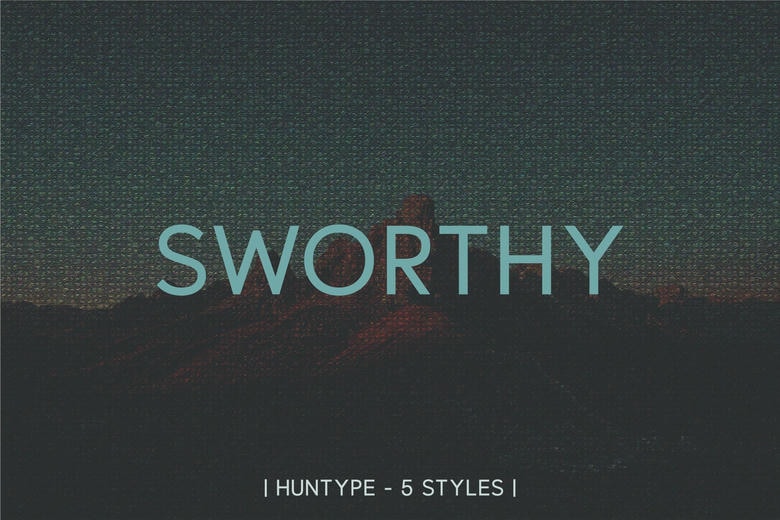
Sworthy Font
Sworthy is a Sans Serif Font, a meticulously crafted font family that epitomizes elegance, modernity, and versatility. With its five distinct weights—THIN, LIGHT, REGULAR, BOLD, and BLACK. Sworthy Family offers a wide range of creative possibilities, making it the perfect choice for designers and content creators.
Whether you’re aiming for a subtle and delicate touch or a bold and impactful statement, this font family’s seamless blend of sophistication and contemporary style ensures your projects will shine with distinction.
Sworthy Sans Serif Font